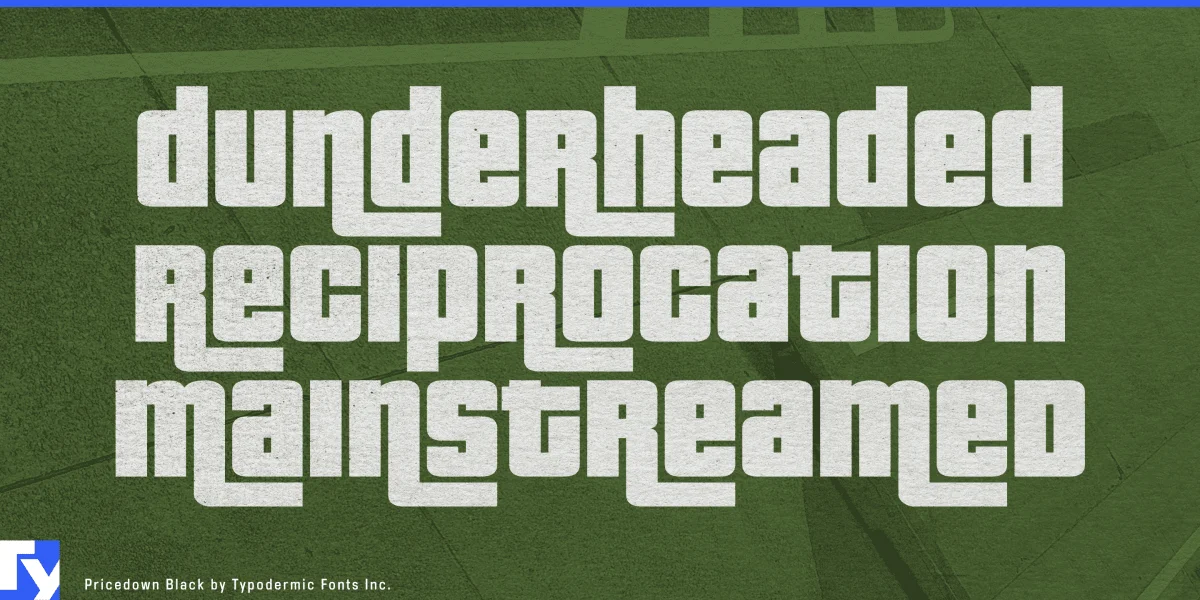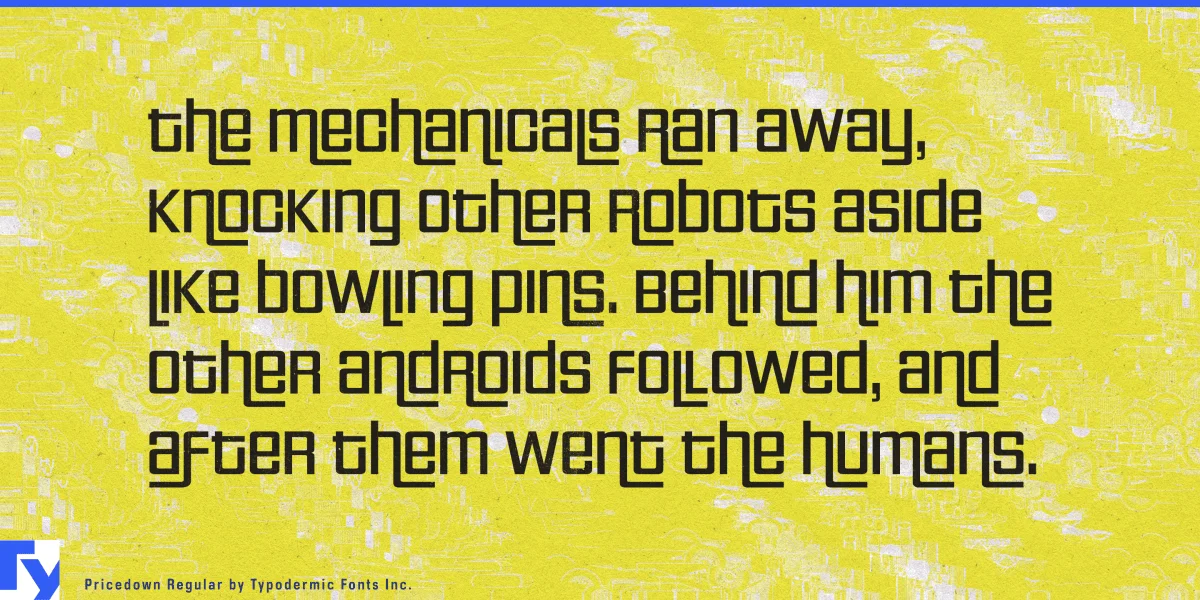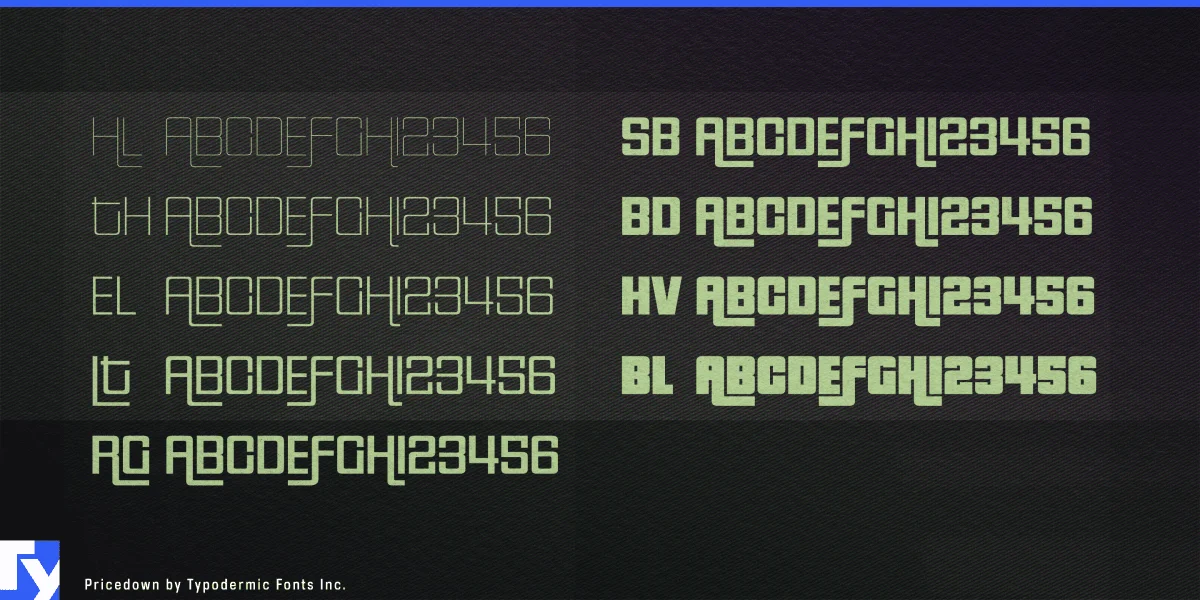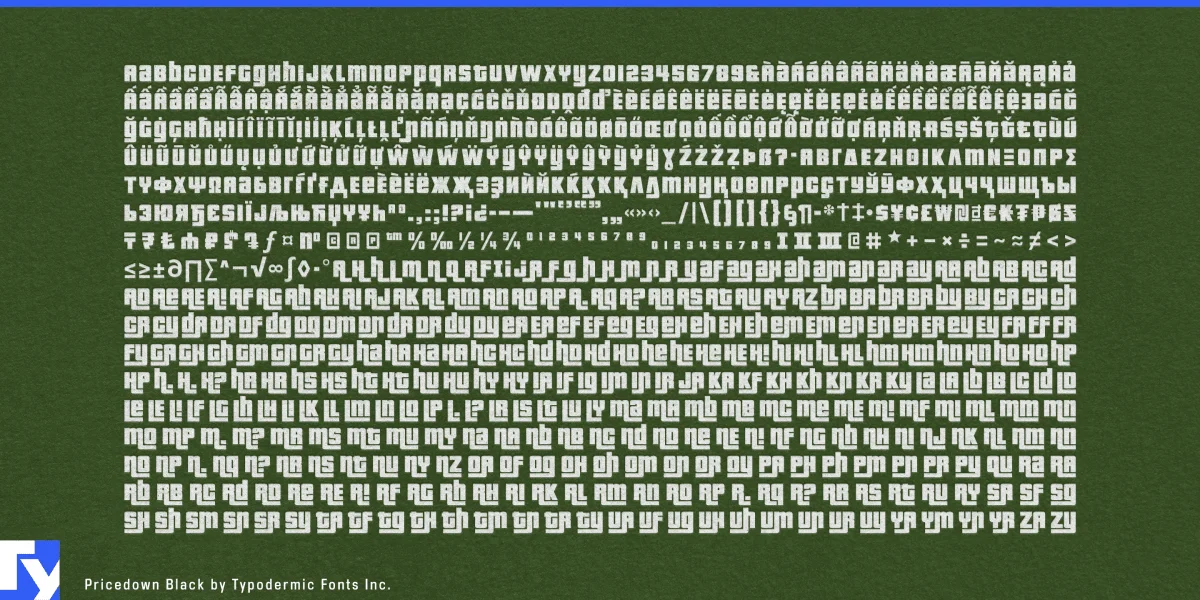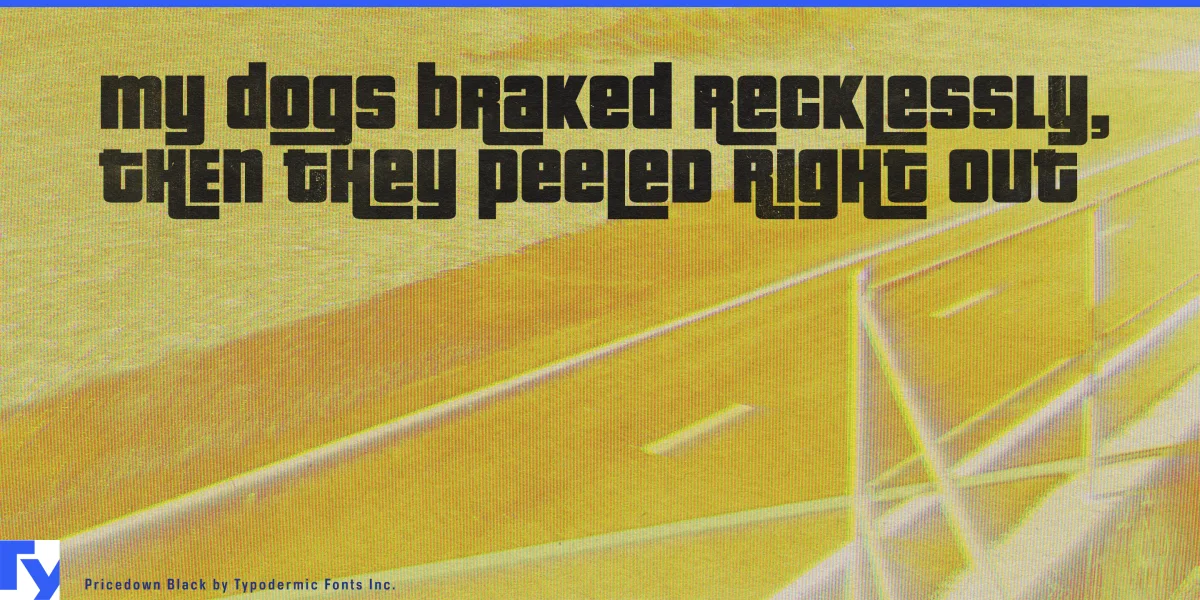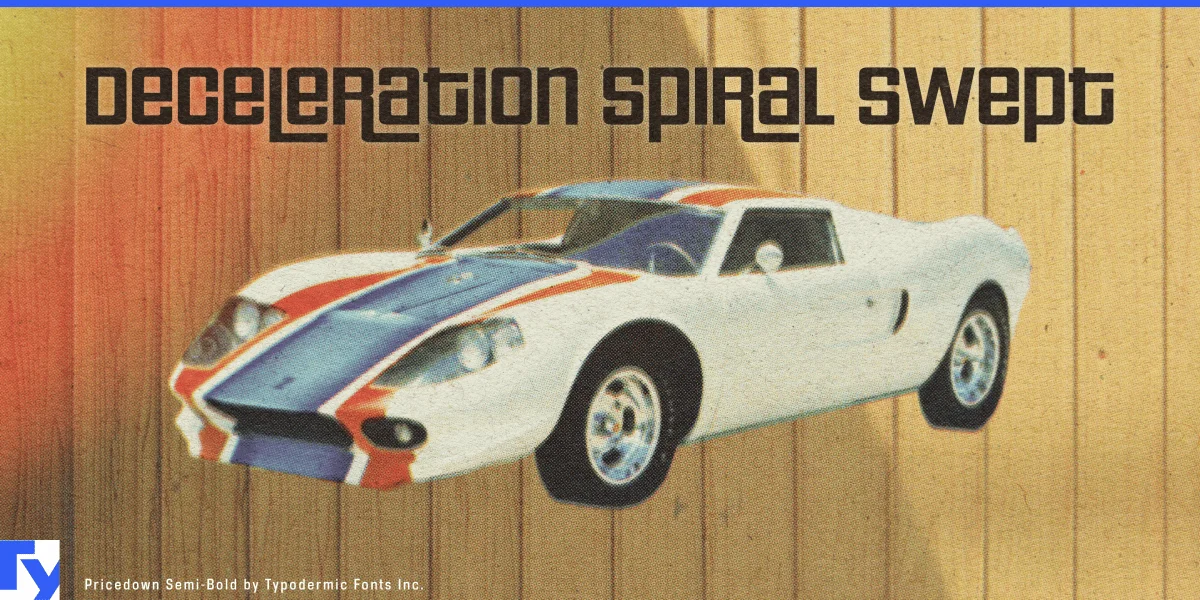
Step right up, folks! Pricedown is more than just a typeface—it’s a time machine disguised as letters, ready to transport your designs back to the golden age of game shows and arcade thrills. Pricedown struts onto your screen with all the bravado of a contestant eyeing that showcase showdown.
But Pricedown isn’t content to rest on its retro laurels. Oh no, this typeface plays games with your expectations. Activate those OpenType features, and watch as characters interlock like long-lost puzzle pieces. That swash tail on the “H” sneaking under the “I”? It’s not just a ligature—it’s typographic choreography, a little dance of delight right there on your page. With nine weights at your disposal, Pricedown is like having an entire variety show cast at your fingertips. Go bold and brash for headlines that scream “New car!” or dial it back for body text that purrs “Actual retail price.” The versatility is so good, you’ll want to trademark it.
And talk about a polyglot! Pricedown doesn’t just speak English—it’s fluent in everything from Afaan Oromo to Zuni. It’ll render your message in Greek with the flair of Zorba, tackle Cyrillic like a typographic Cossack, and even take on Vietnamese with all the zest of a Saigon street market. Choosing Pricedown for your project isn’t just a design decision—it’s a statement. It says, “I remember when TV was exciting, when arcades were temples, and when typography had personality you could see from space.” It’s for designers who know that sometimes, to move forward, you need to take a stylish step back.
So, whether you’re crafting a retro-inspired logo, designing a throwback poster, or just want to infuse your work with a hefty dose of nostalgic charm, come on down! Pricedown is waiting to make you the next big winner in the game of standout design.